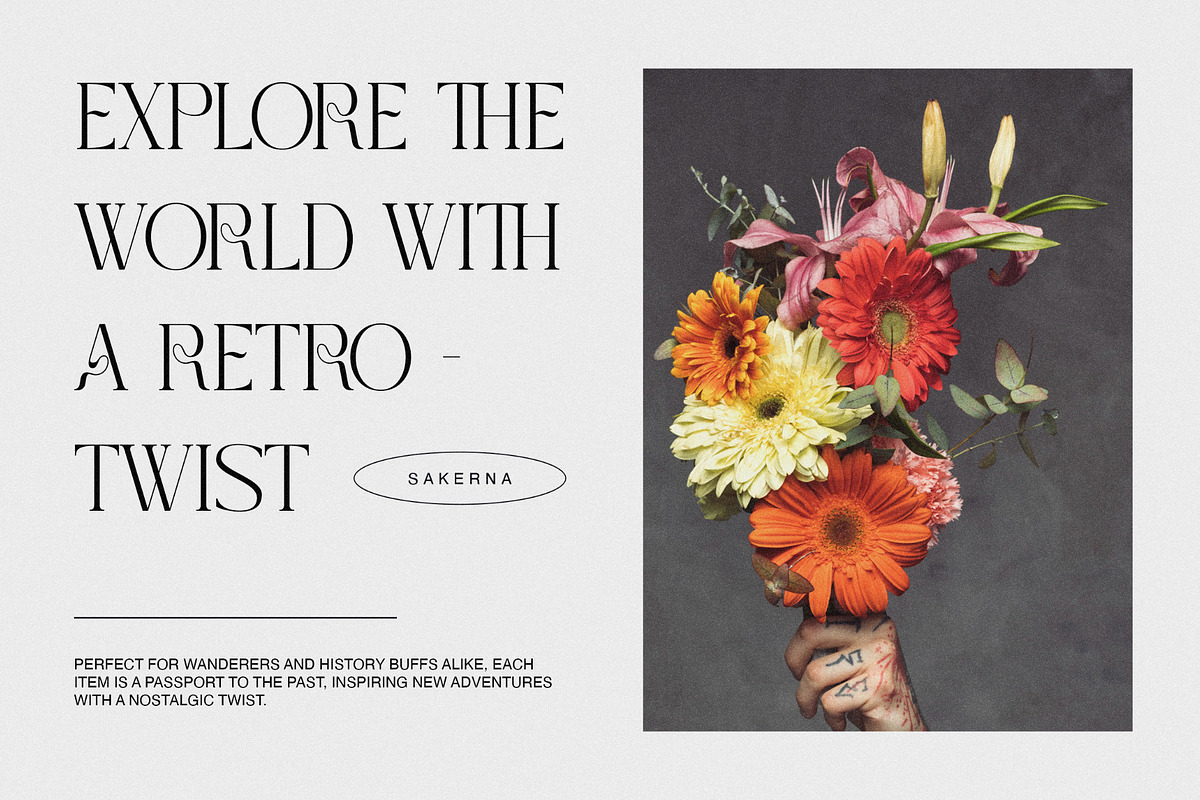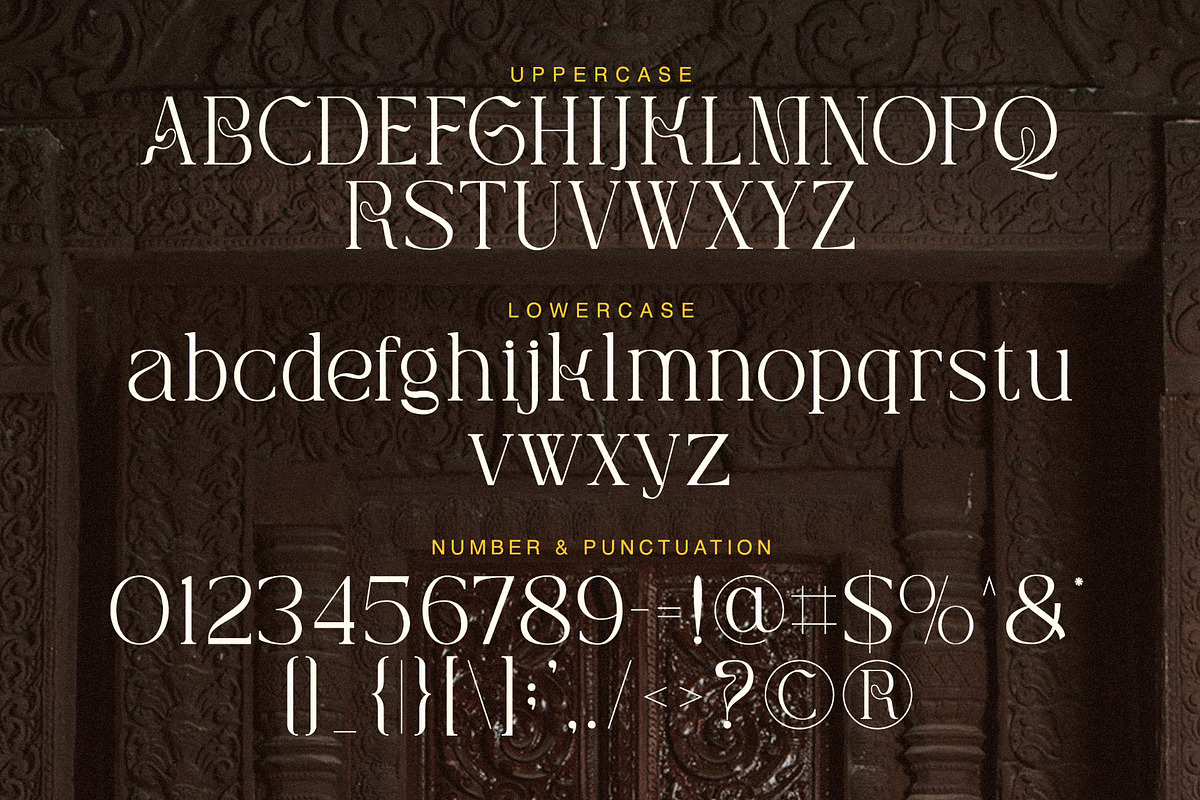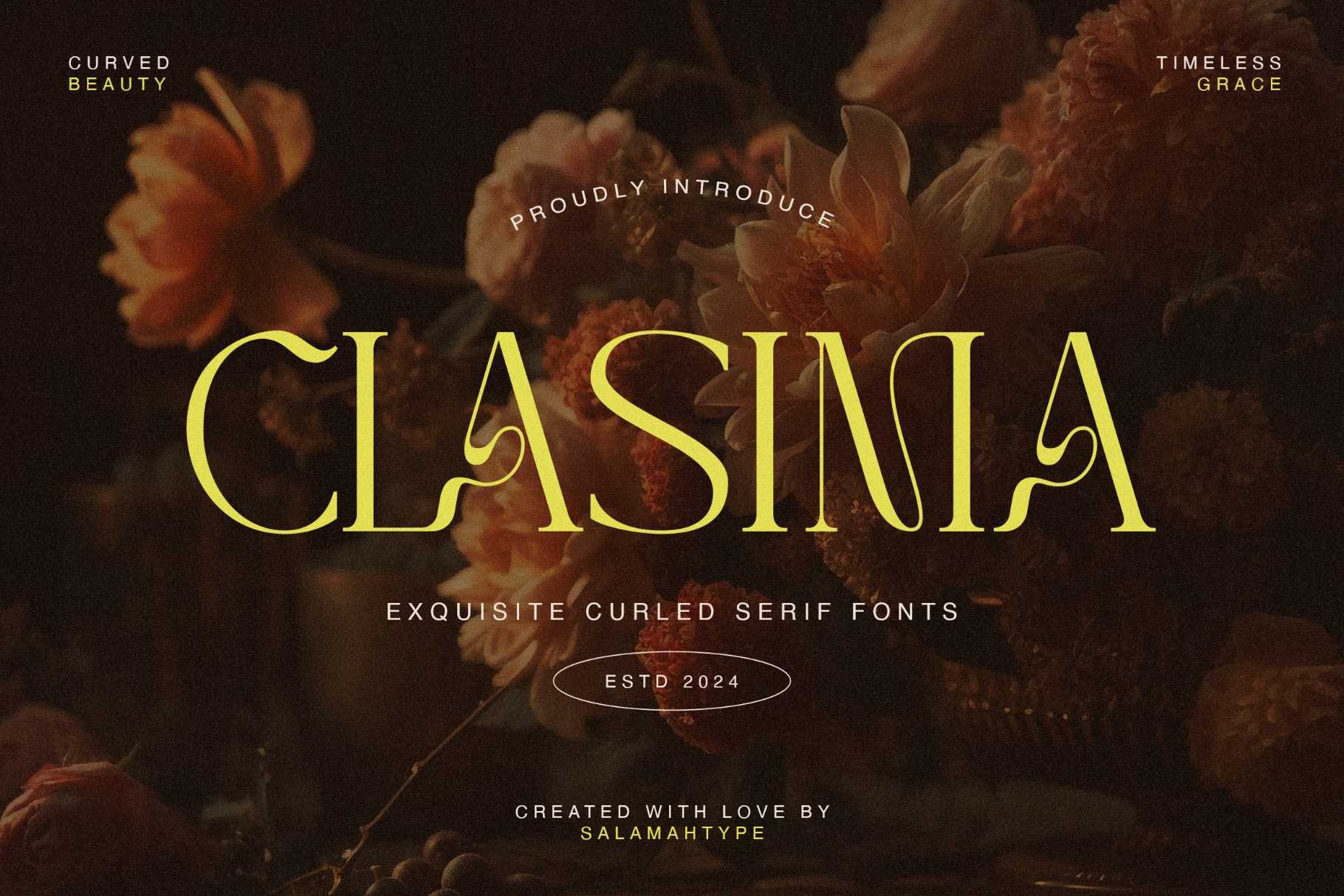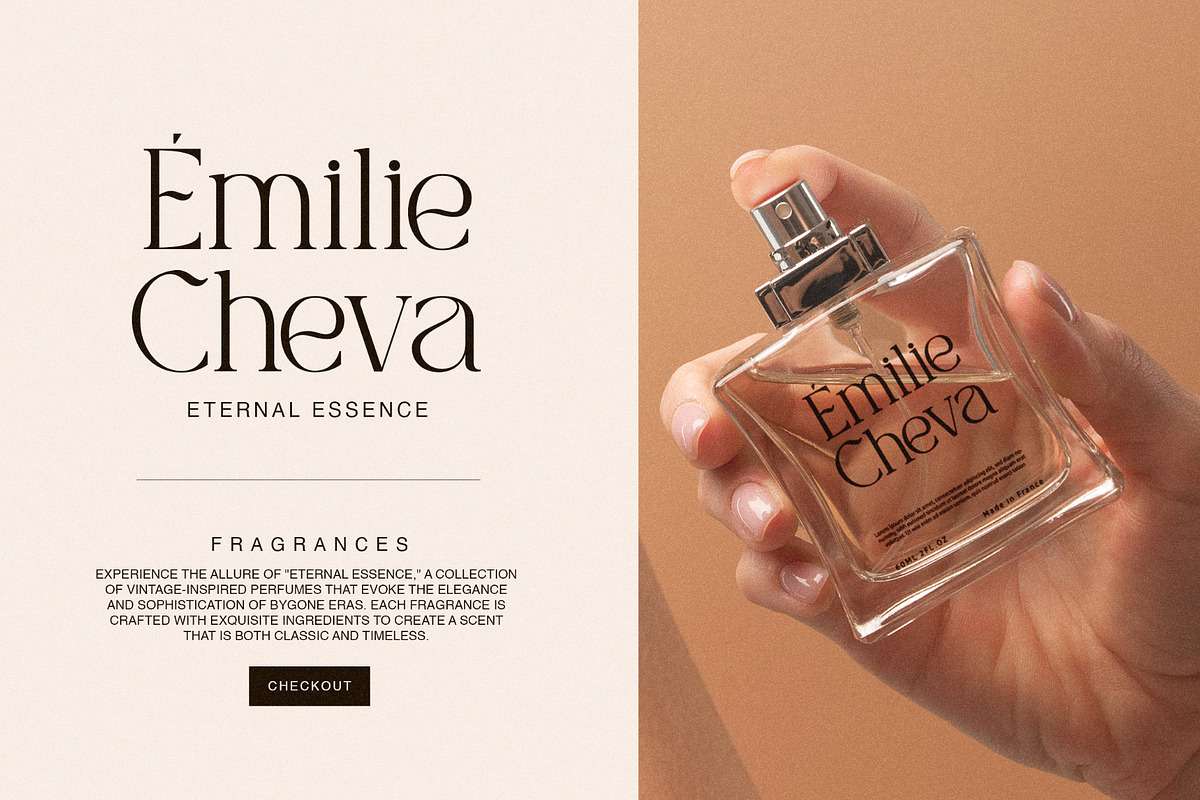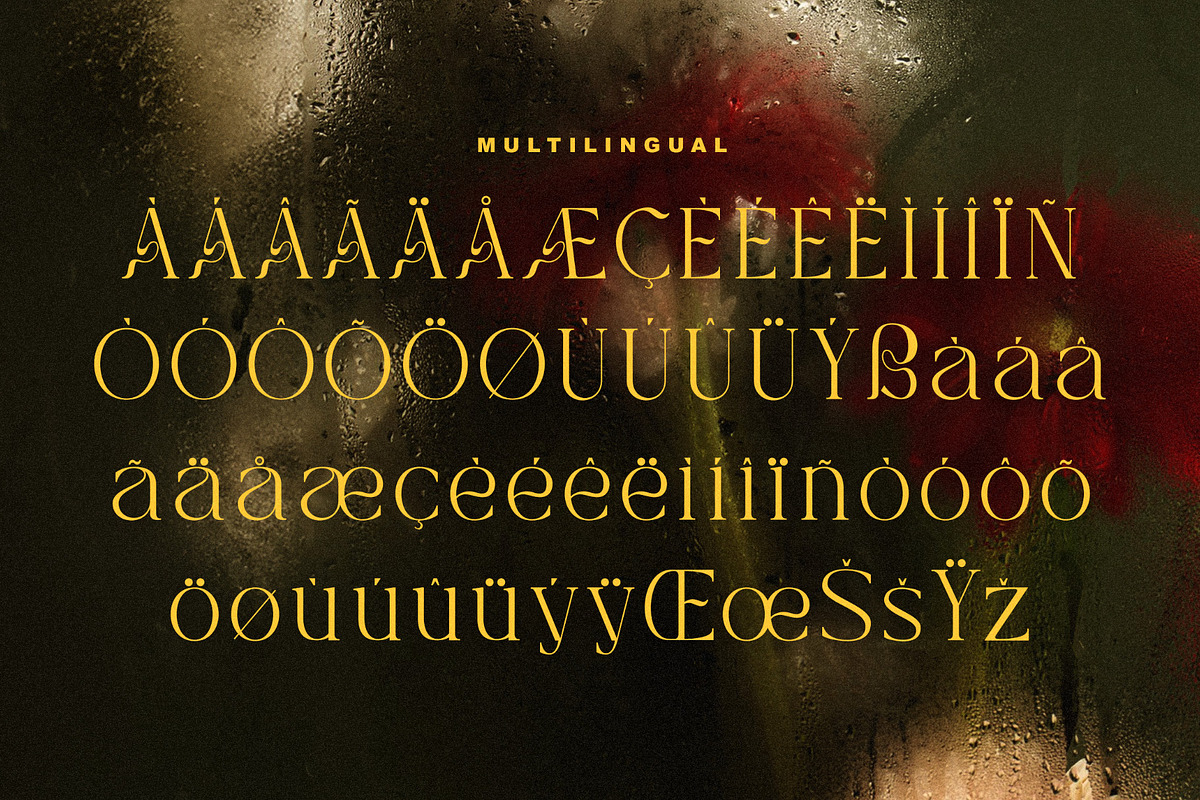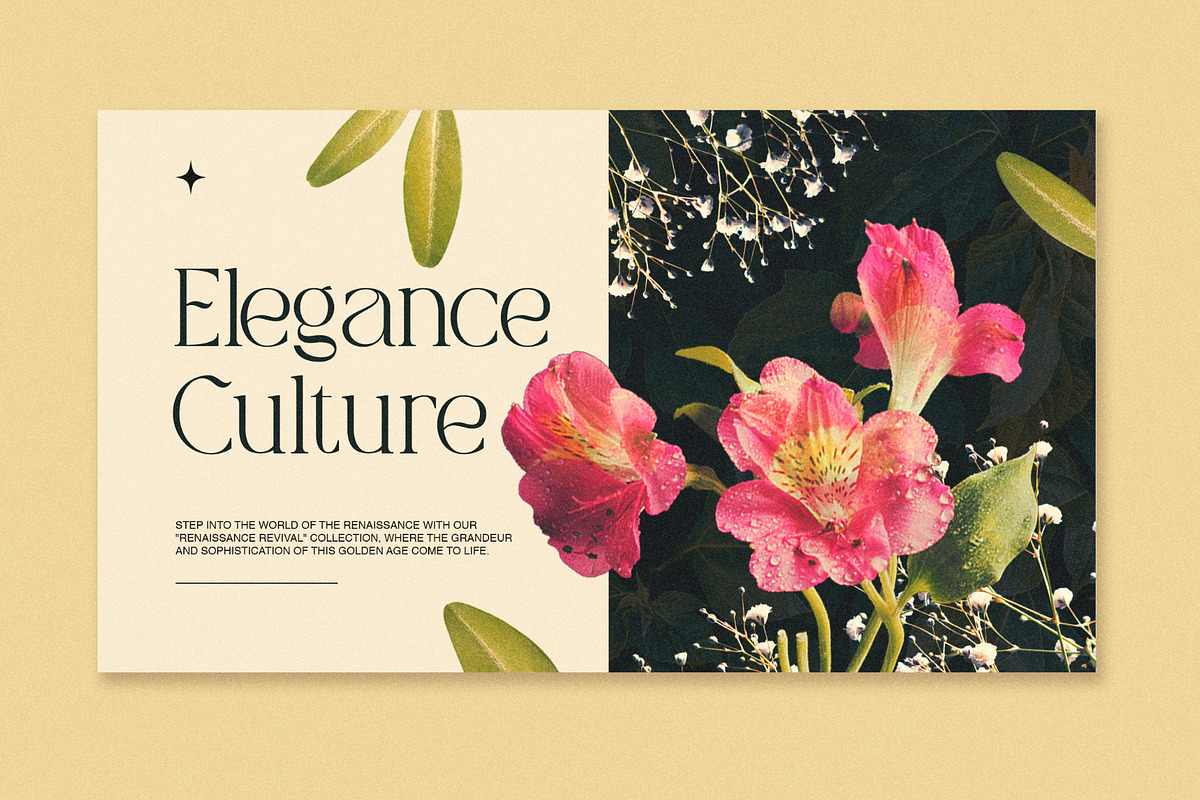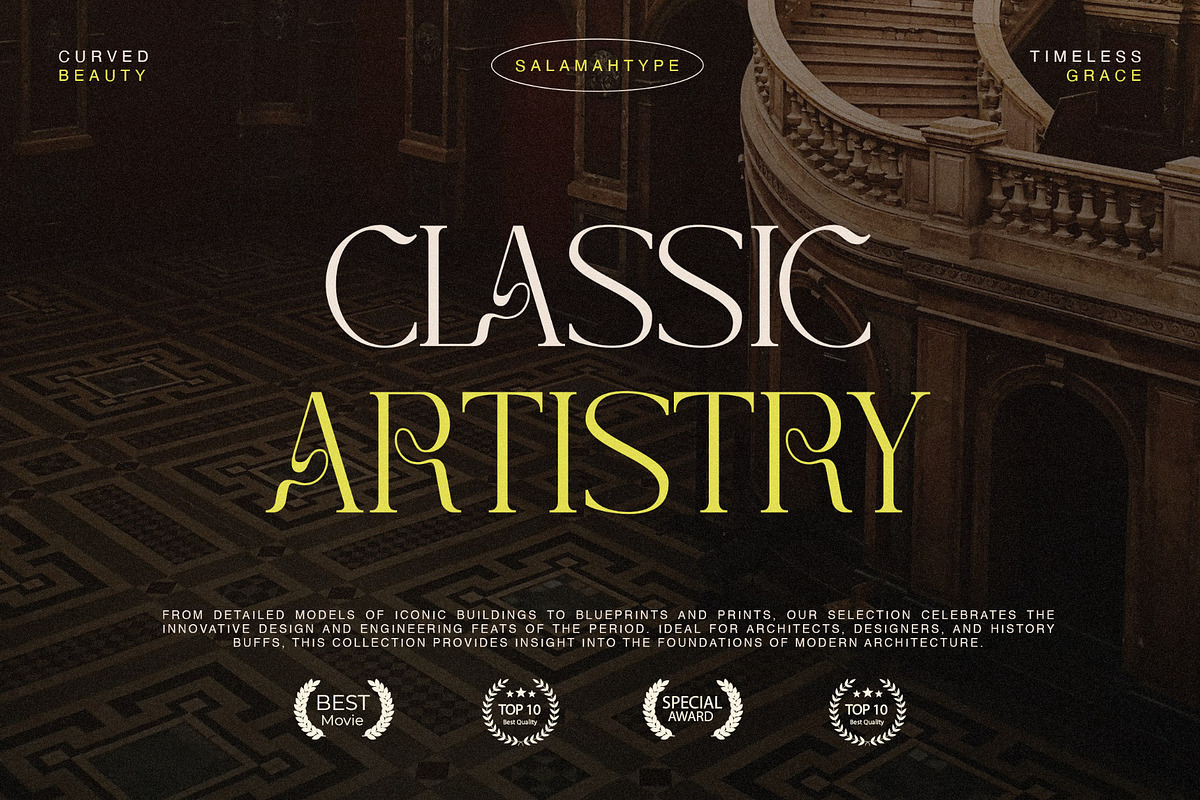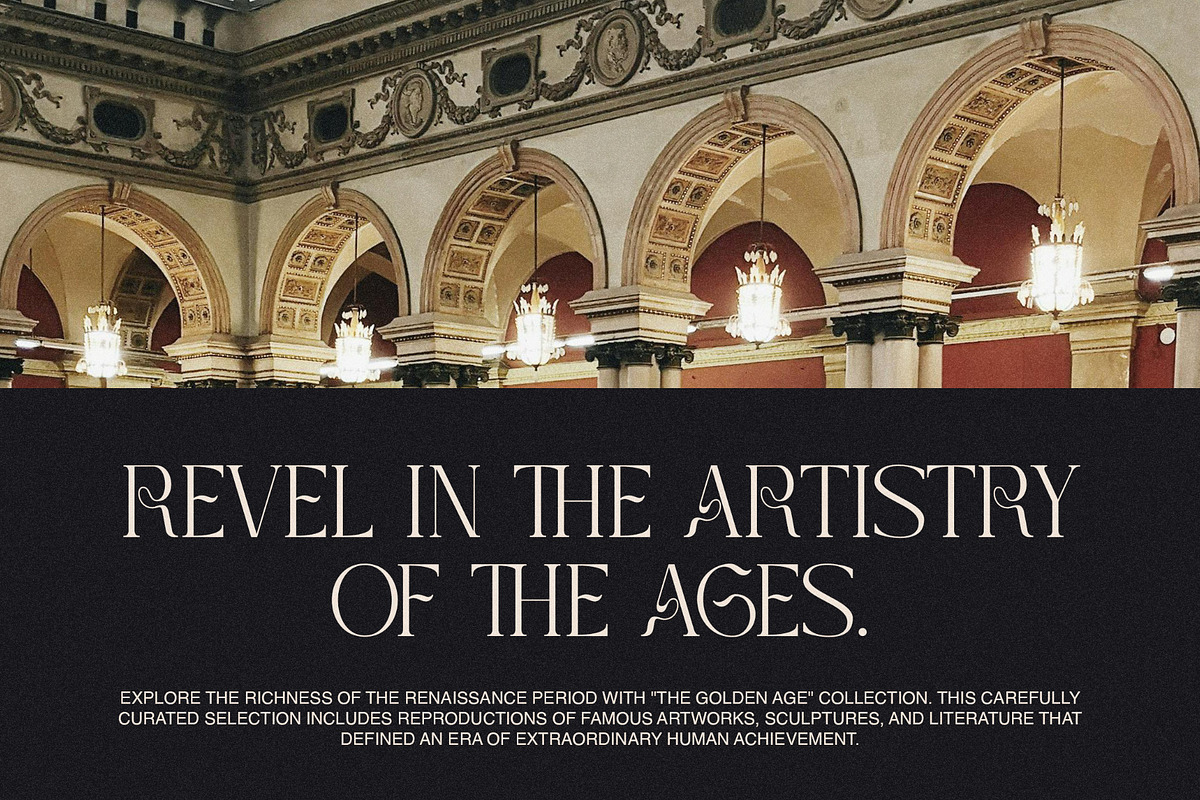
Clasima - Elegant Font
CLASIMA is a beautiful font with outstanding ligatures that is ideal for designing beauty-inspired logos for cosmetics and other high-end items. Its delicate style originates improvement and grace, making it an excellent choice for firms looking for a trendy and professional appearance.
- Uppercase Lowercase